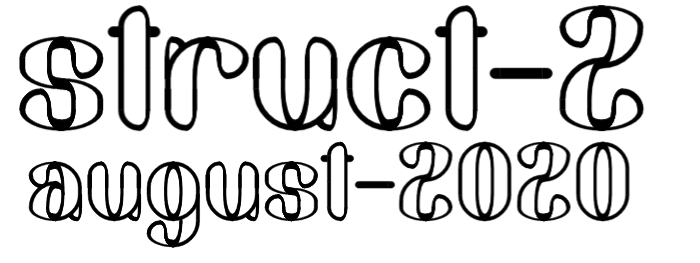
A very curvy and novel design that doesn't seem like it would be possible with Fontstruct :)
Pretty! Some glyphs seems like hand-drawn or even vectorized, like I said at first time about "Struct".
Nice work, good use of bricks and composites! The horizontal lines on z seem a bit heavy in comparison to the other glyphs.
Congratulations! FontStruct Staff have deemed your FontStruction worthy of special mention. “Struct-2” is now a Top Pick.
a well deserved top pick!